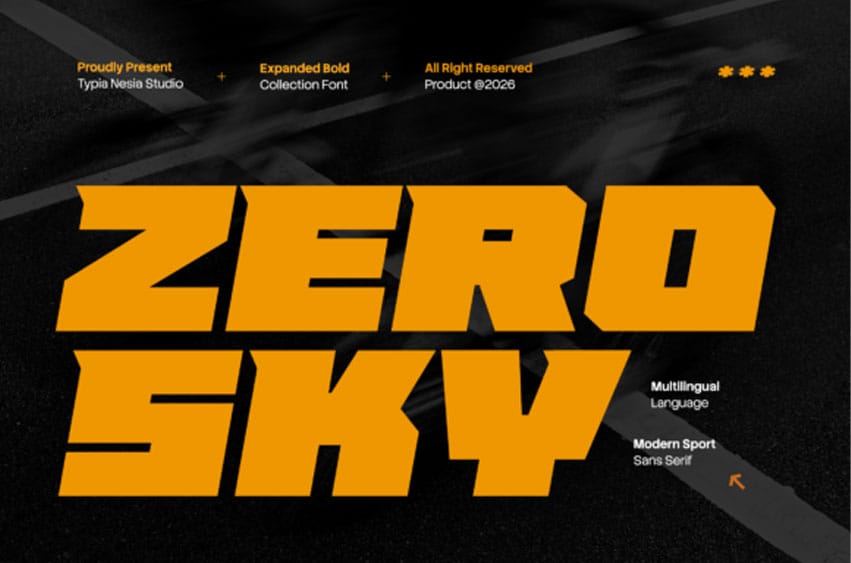
Zero Sky Font is a bold modern sport racing font designed to deliver extreme speed, futuristic energy, and high-performance visual impact.
Featuring dynamic italic angles, expanded proportions, and sharp geometric cuts, this typeface captures the adrenaline of racing, gaming, and futuristic tech aesthetics.
It is perfect for game titles, racing logos, esports identities, automotive posters, tech branding, logotypes, futuristic advertising projects, and any project that needs a touch of bold modern digital style. This font blends strong readability with a sleek sci-fi atmosphere that stands out across both print and digital media.
Boost your design with the speed of Zero Sky.